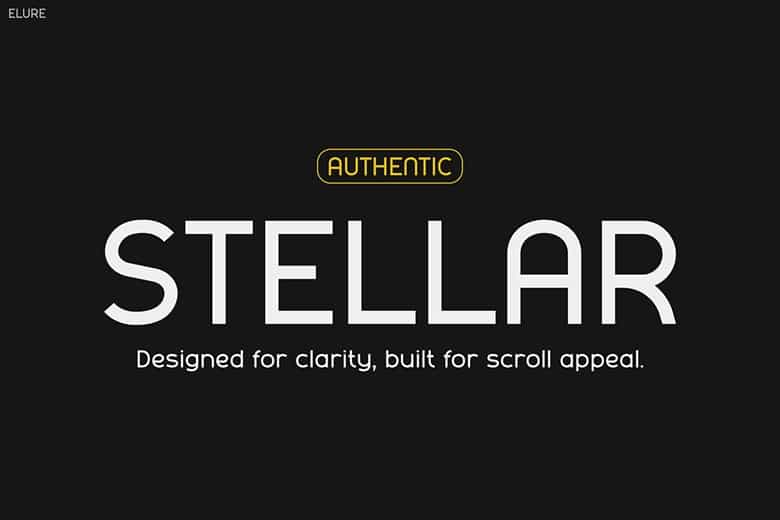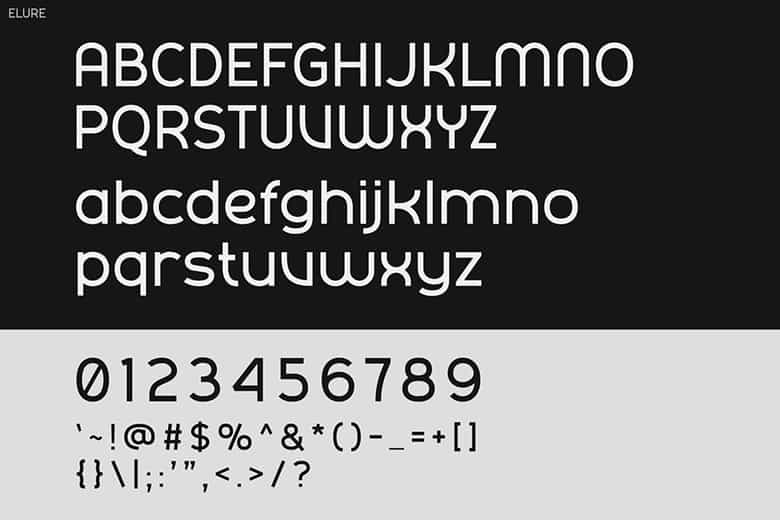
Elure is a typeface created recently, belonging to the geometric sans serif group and comes in five forms. It has smooth shapes, sharp lines and well-balanced spacing. So, it immediately draws eyes and interest from readers and viewers. Its special quality lies in its trendy, yet friendly reading tone. The letters are shaped precisely, but still seem easy to interact with because of their soft edges. Therefore, it looks great and is very easy to read.